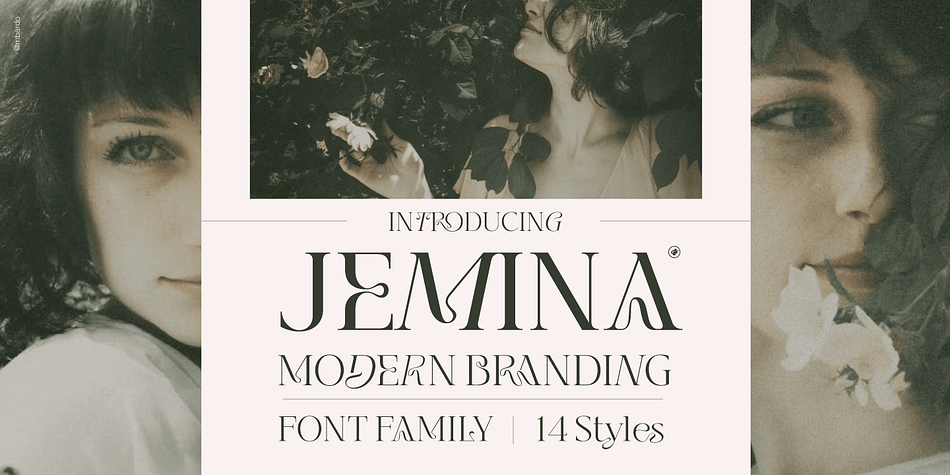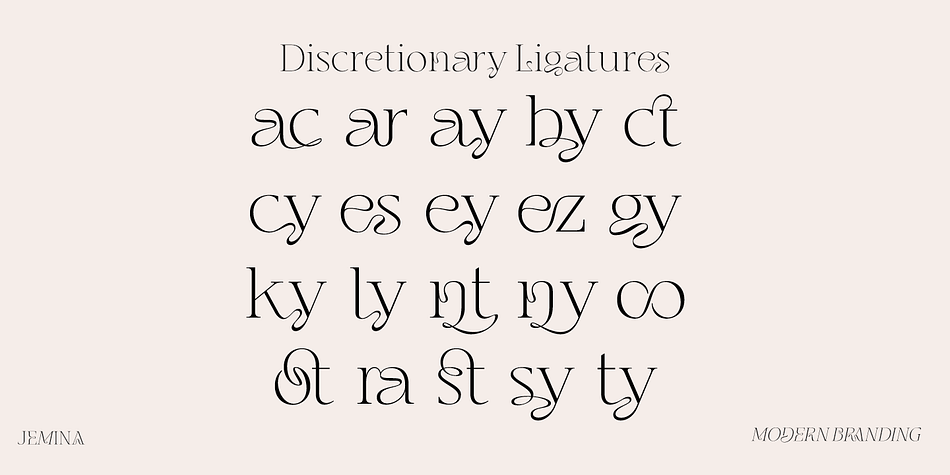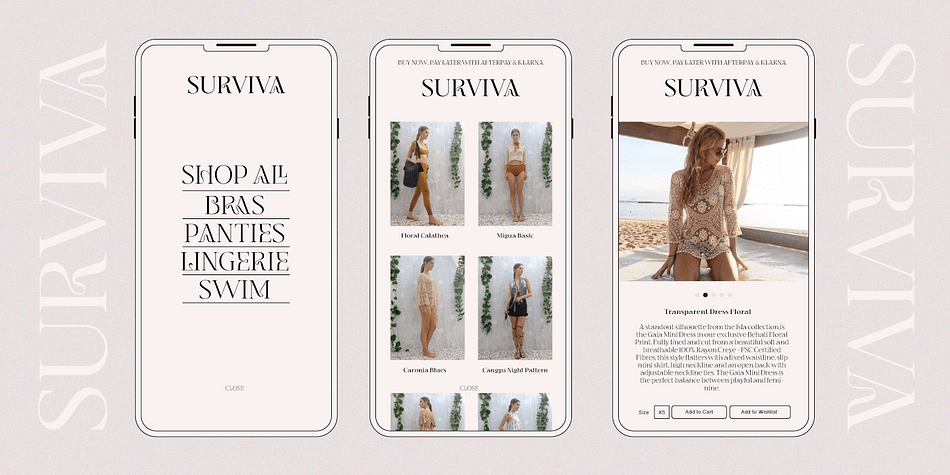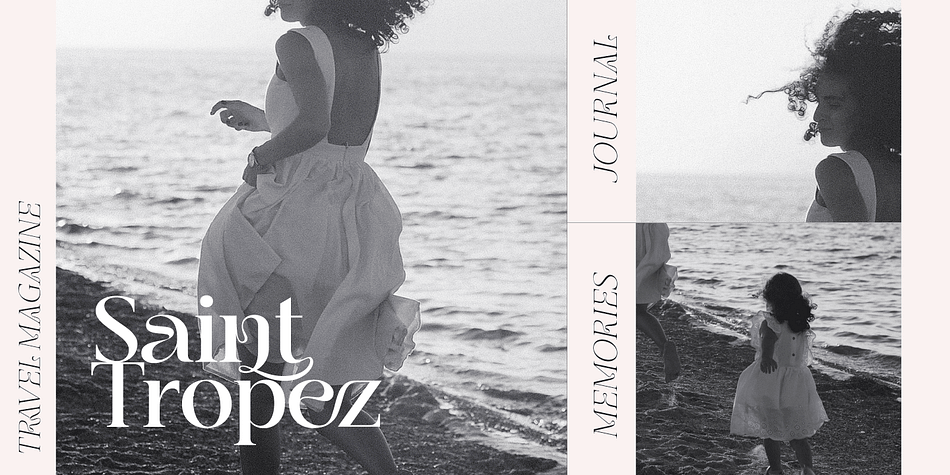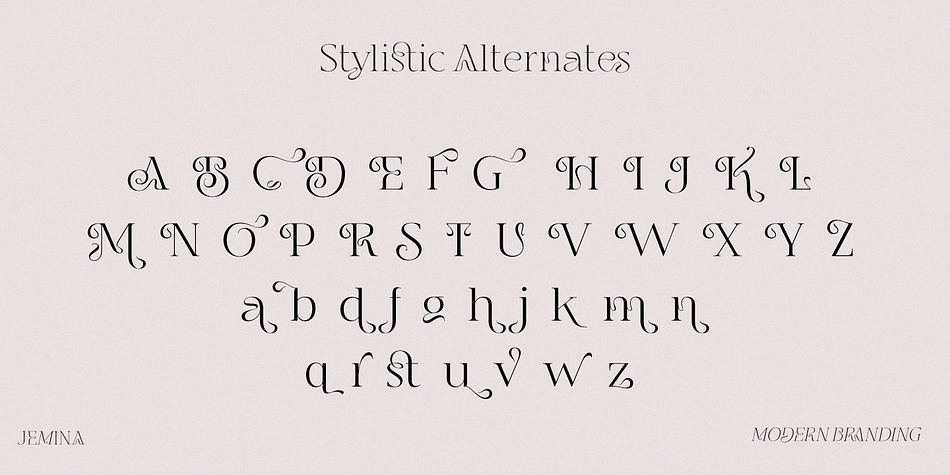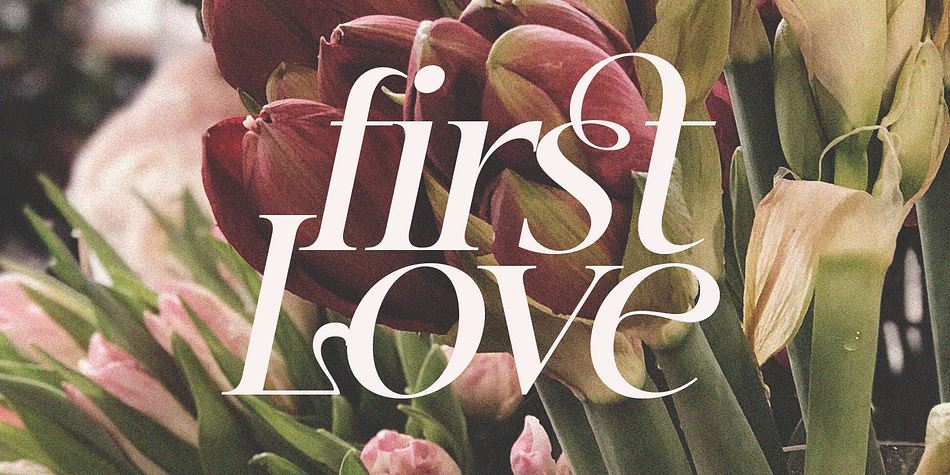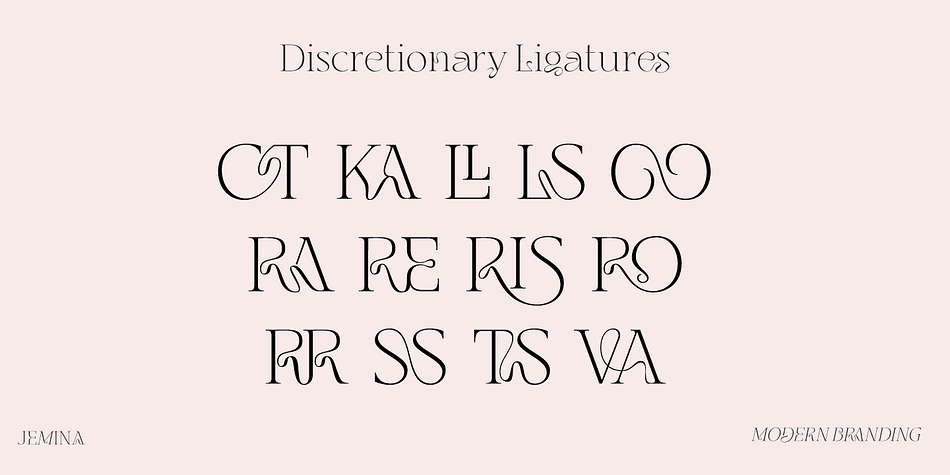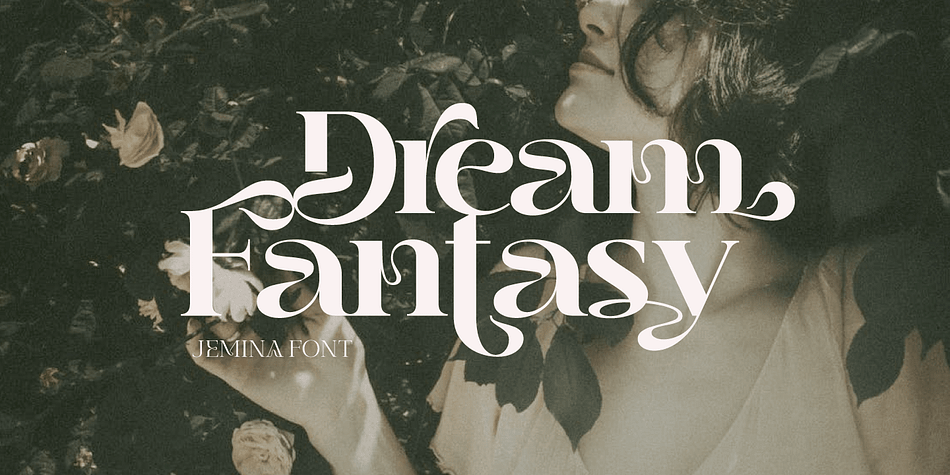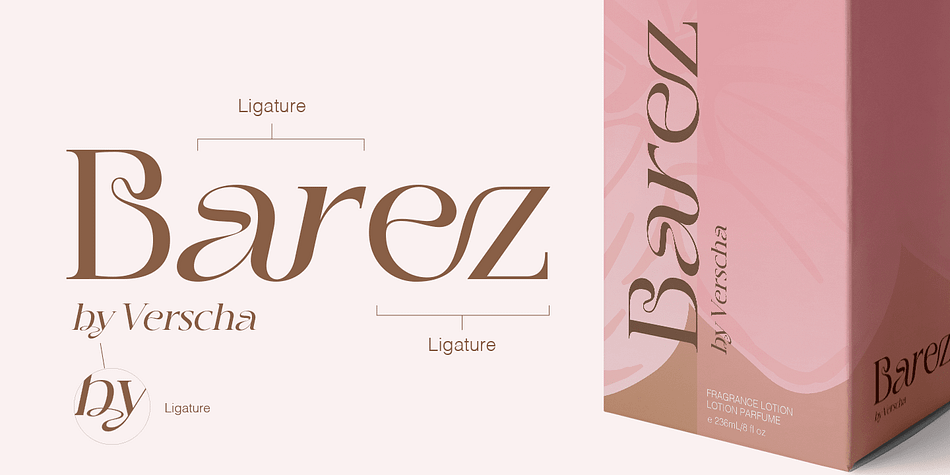
Jemina
Jemina is a display serif font family. This typeface has sixteen styles and was published by Creative Media Lab.
Jemina is a modern, unique serif font. The dynamic curve of each letter looks elegant and charismatic and will be the center of attention for the eye which sees it.
The abstract feel of its characters strikes a balance between modern and classic typography.
Perfect for branding, logo, and fashion-related concepts.
Comes in 14 styles and variable format.